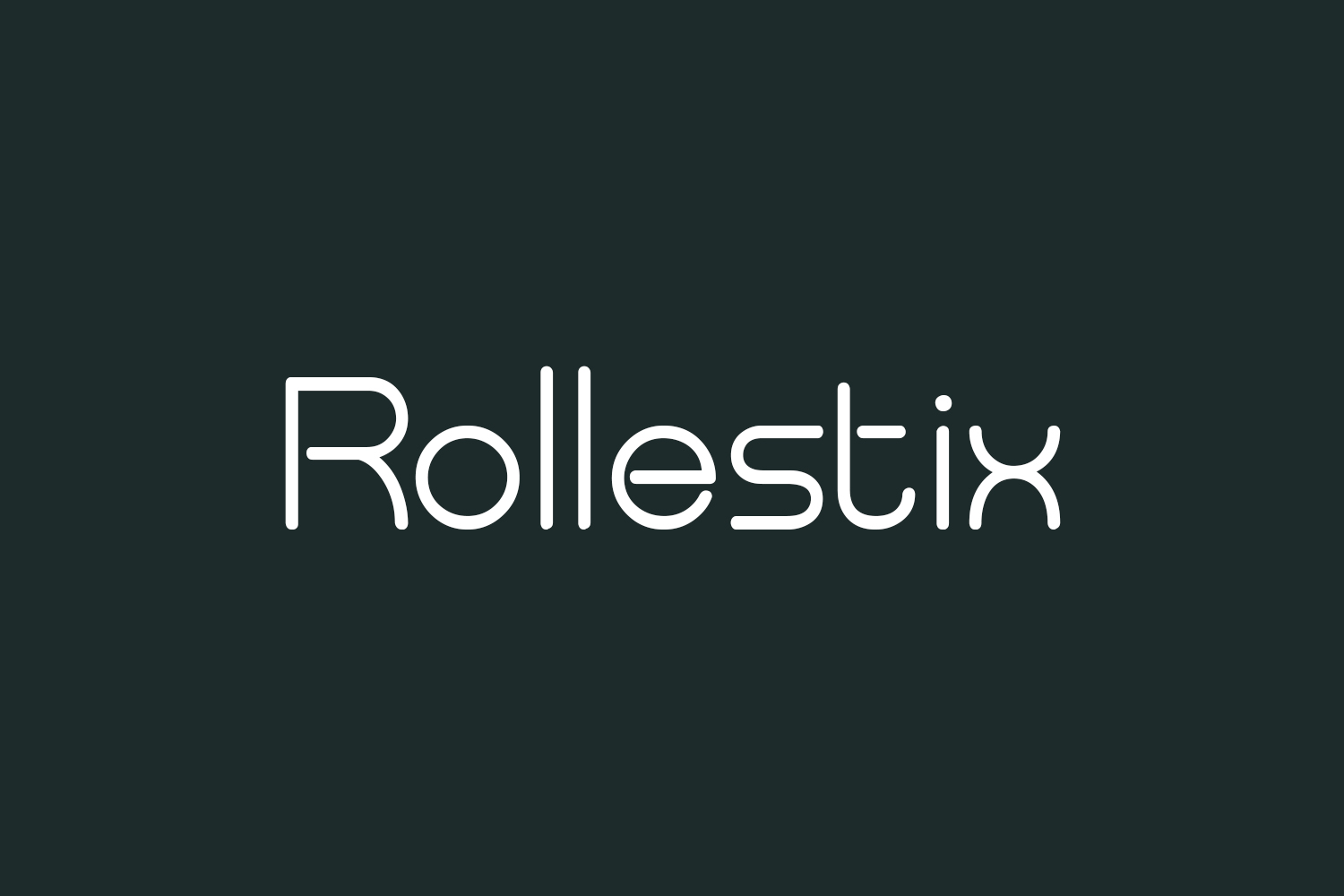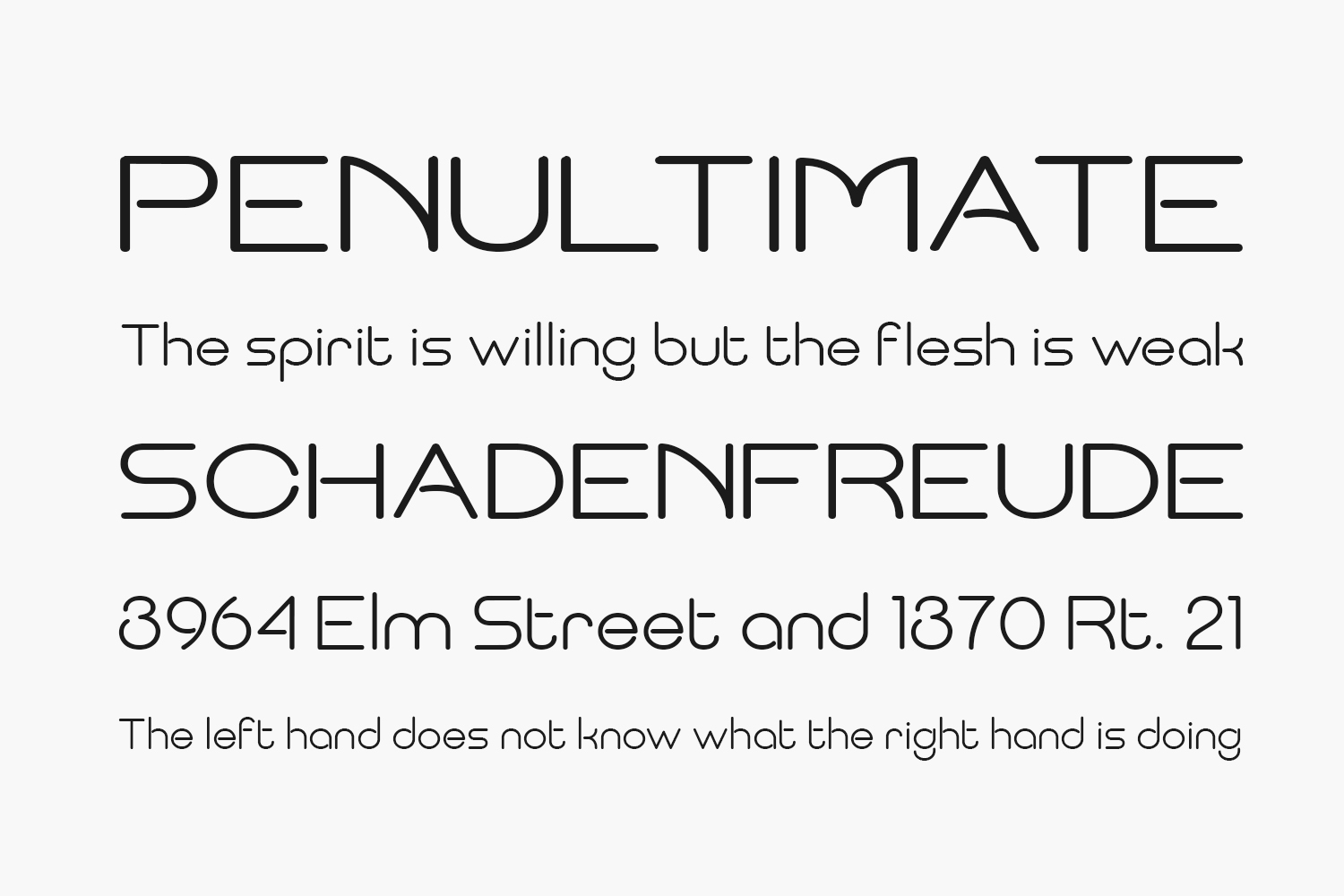
Meet Rollestix Free Font, the stunning sans serif font that captivates with its elegance. With clean lines, graceful curves, and charming swashes, it adds a touch of sophistication to any project. Available in three distinct styles, Rollestix seamlessly blends smoothness with sharpness, making it the ideal choice for all your design requirements. Download the font for free if you need it for personal use or purchase the full version for commercial use.
Designed by ArtzaGraph Studio